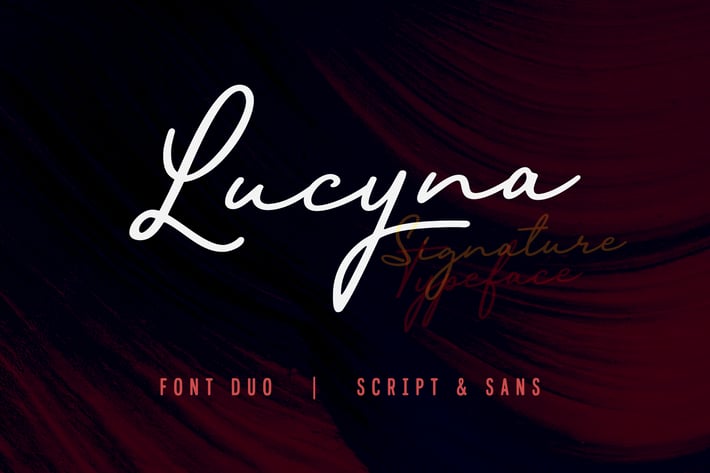
Lucyna Font Duo
Lucyna Font Duo is a pair of fonts that combine signature style, Lucyna Script and sans serif, Lucyna Sans.
Lucyna Script is a handwritten typeface that gives you a relaxed yet beautiful style for your design. The sleek signature style is perfect for photography and beauty business logos, invitations, headlines, posters and more.
Lucyna Sans is a sans serif font specially paired with Lucyna Script. Thick but rounded shape gives a strong but not rigid impression. You can mix and match these two fonts to create a casual yet classy design.